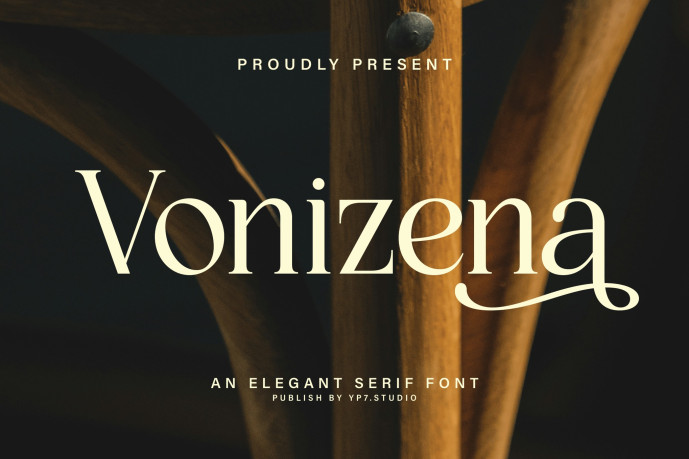
Vonizena Font
Designer: yogaperdana7
Vonizena Font is an elegant serif font crafted with graceful curves and refined details, delivering a timeless sense of sophistication. Its balanced form and stylish character make it ideal for branding, editorial layouts, invitations, and high-end design projects. Vonizena adds a touch of elegance and polished beauty to any visual creation.